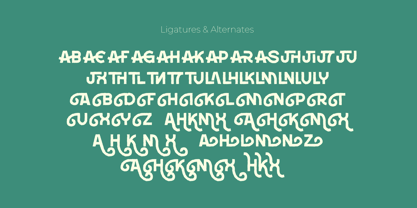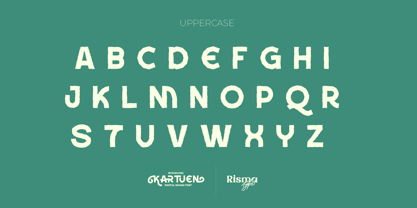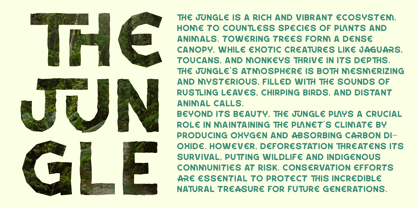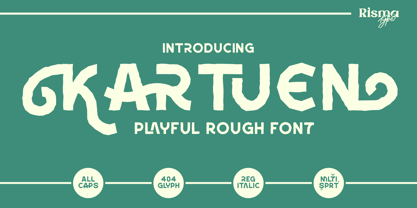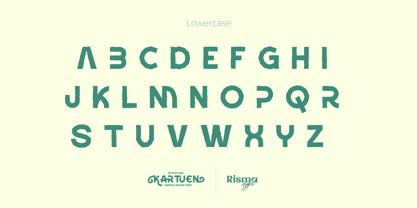
Kartuen
by Risma Type
The Kartuen Font Family was designed by Risma Mulyasari and published by Risma Type. Kartuen contains 2 styles and family package options. More about this family
Lively and Characterful, Kartuen is a Playful Rough Sans Serif font that adds a fun and dynamic touch to any design.
With its slightly rugged yet friendly strokes, Kartuen blends casual charm with a handcrafted aesthetic, making it ideal for projects that need warmth, creativity, and a touch of whimsy.
Perfect for children’s books, branding, packaging, posters, and any design that embraces a playful and lighthearted feel, Kartuen stands out with its imperfect yet inviting personality. Whether you're designing for digital or print, this font brings an energetic and approachable vibe that captivates the audience.
Key Features:
• Playful and expressive rough sans serif style
• Handcrafted feel with a touch of imperfection
• Perfect for branding, packaging, posters, and digital media
• Supports multiple languages
• Designed for creative projects that embrace fun and originality
Bring your designs to life with Kartuen – a font that turns playfulness into design magic.